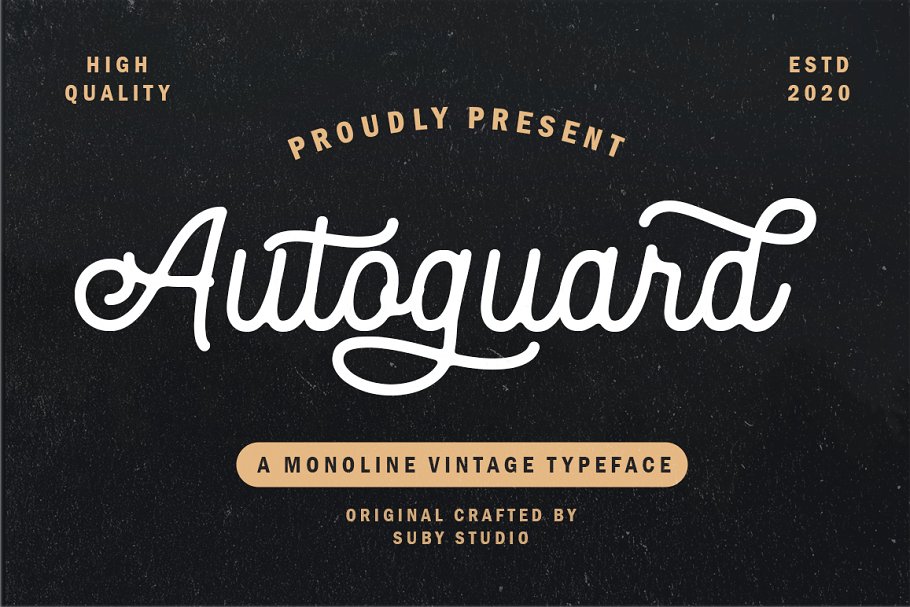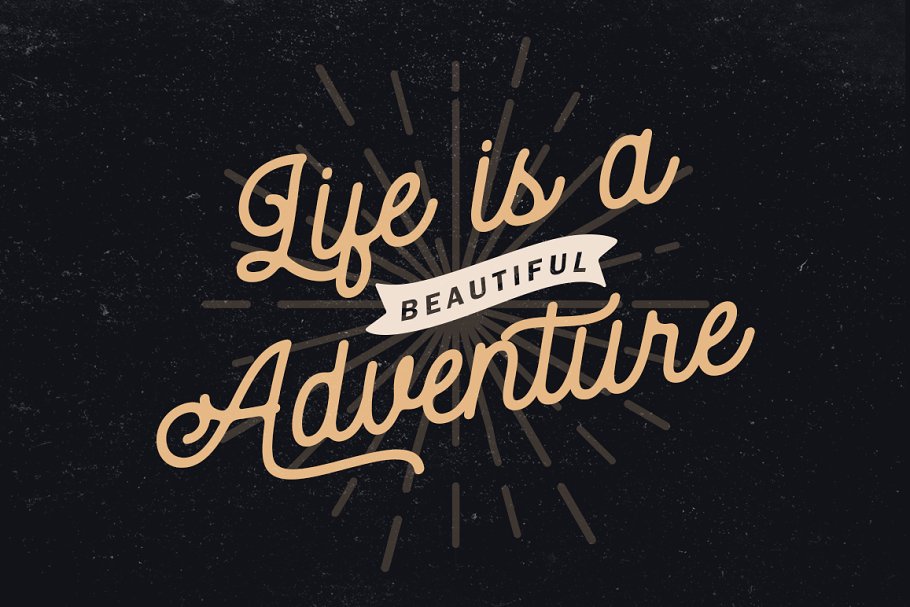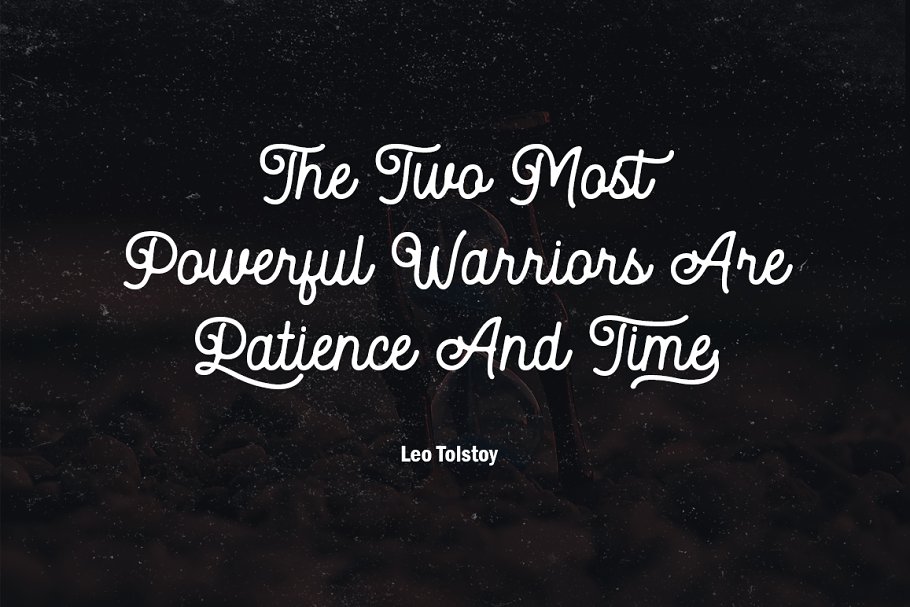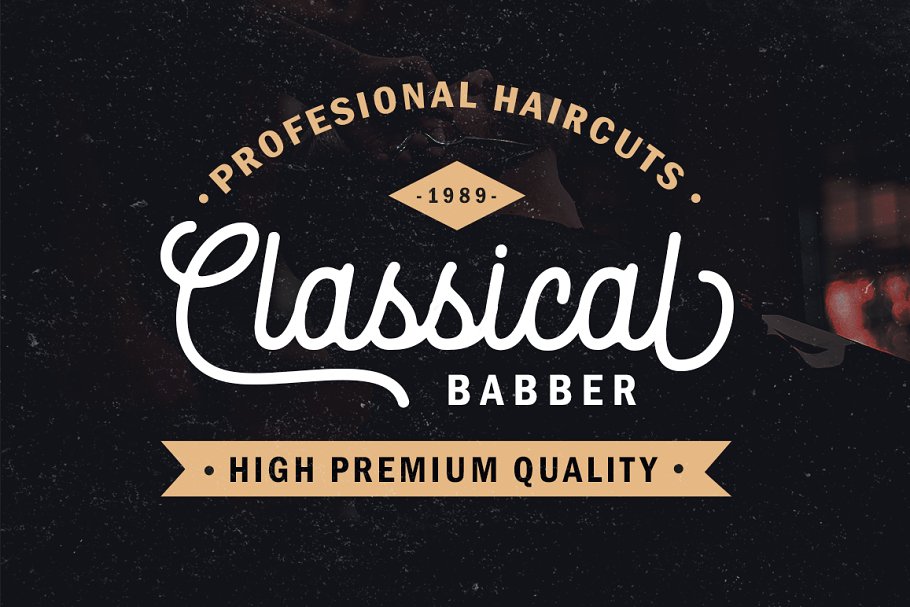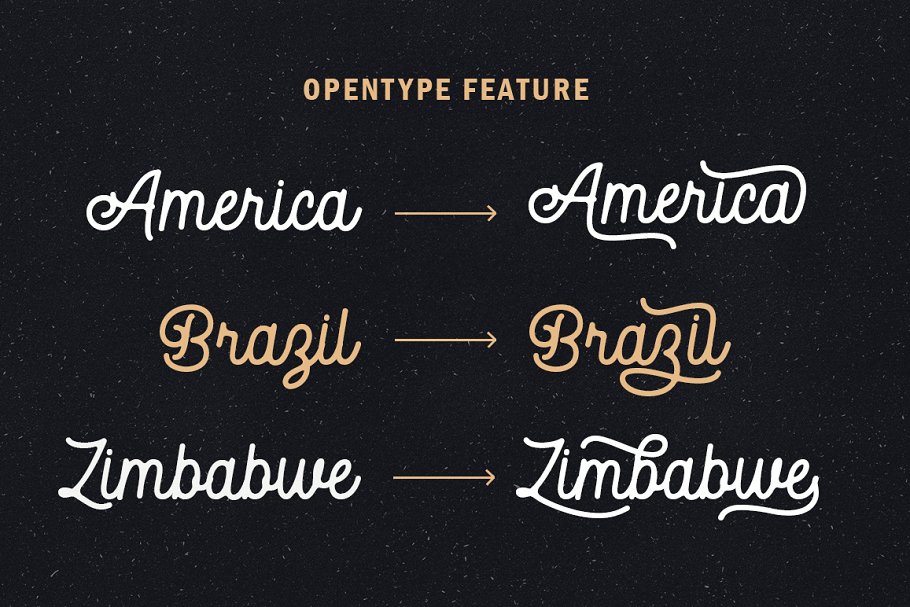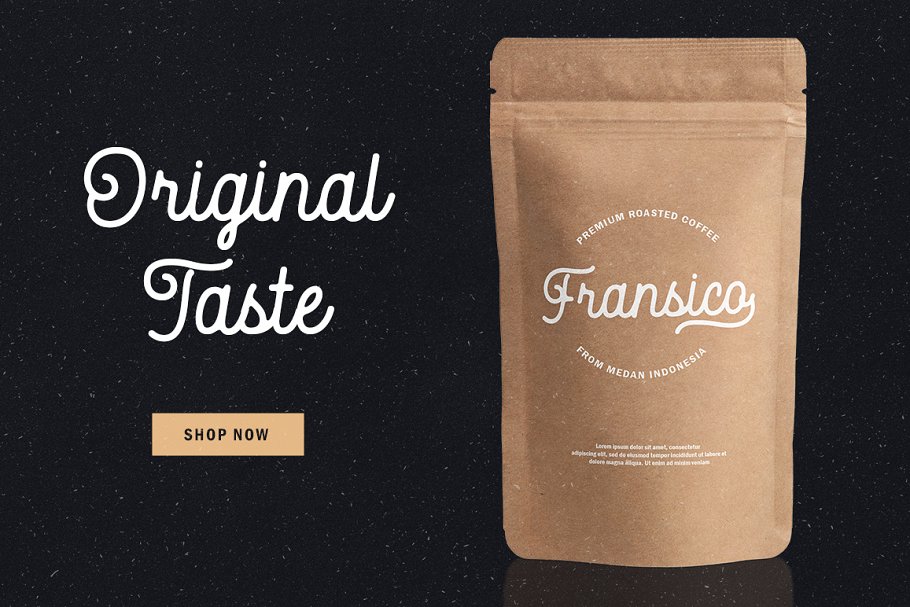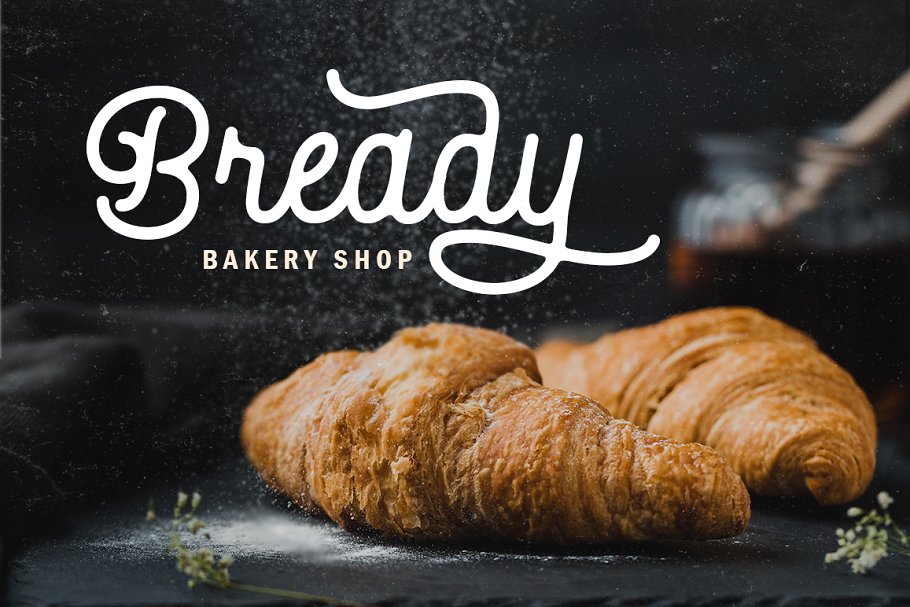
About the Autoguard Monoline Script Font
Autoguard is a monoline font with vintage looks. It is perfect to create beautiful vintage typography on your any project like t-shirt, merchandise, logo label, poster, magazine, packaging, quotation and more.
Autoguard Monoline Script Font